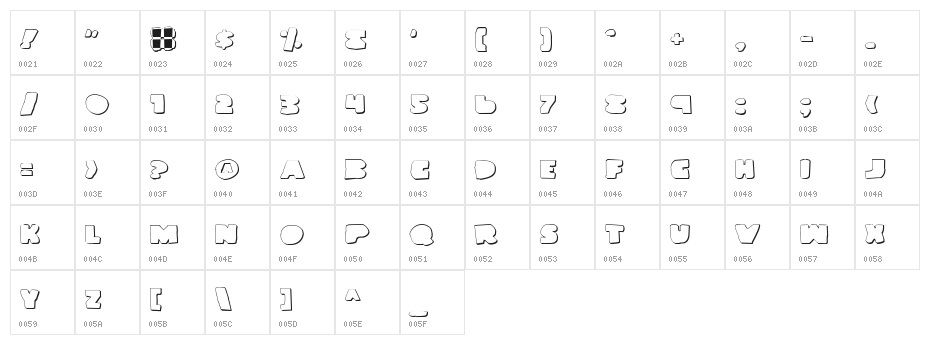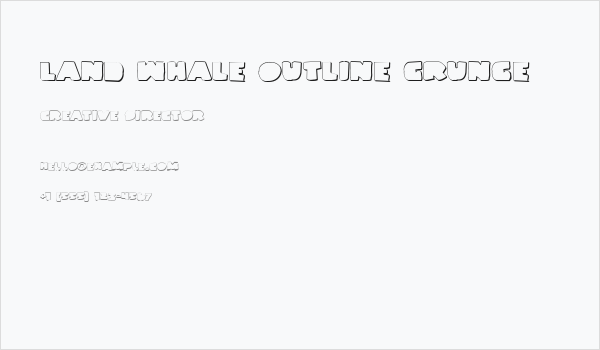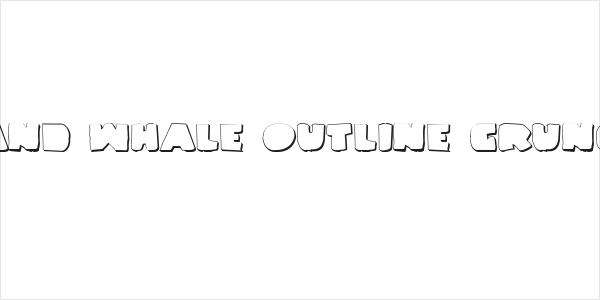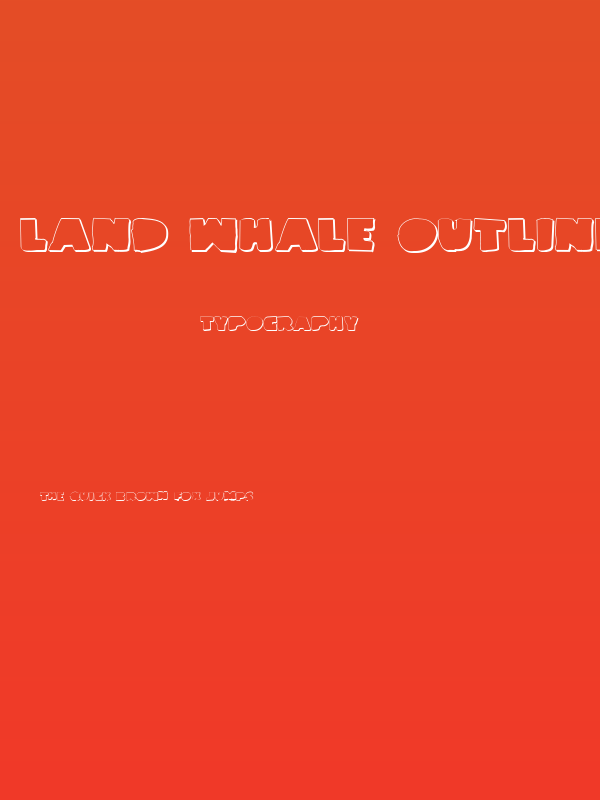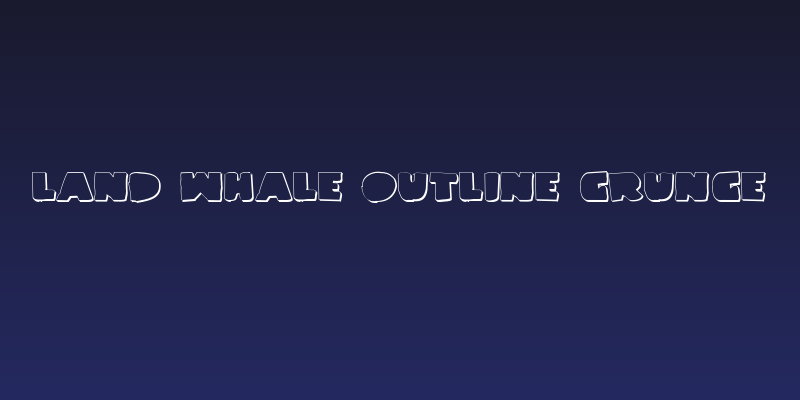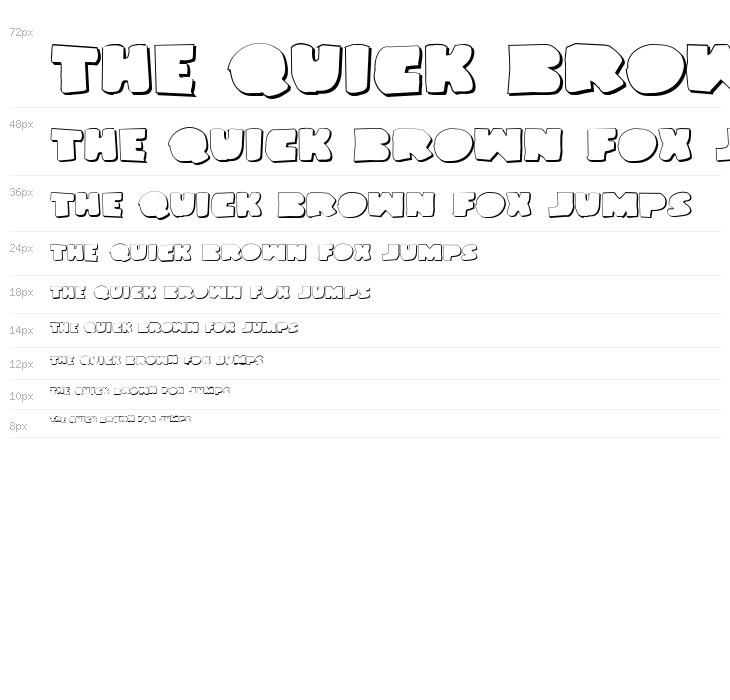
Land Whale Outline Grunge Font
Land Whale Outline Grunge Description
This font features a bold, playful outline style with a grunge effect, giving it a unique and eye-catching appearance. The characters are rounded and chunky, with a consistent thickness throughout, creating a sense of uniformity and balance. The outline adds a layer of depth, making the letters stand out against backgrounds. The grunge effect introduces a slightly distressed look, adding character and a vintage feel. This font is ideal for projects that require a fun and informal touch, such as posters, flyers, or children's book covers. Its boldness ensures readability while the outline and grunge elements provide a distinctive aesthetic.
Overall StylePlayful, Vintage
Proposed ProjectsPosters, flyers, children's book covers, event invitations, and playful branding.